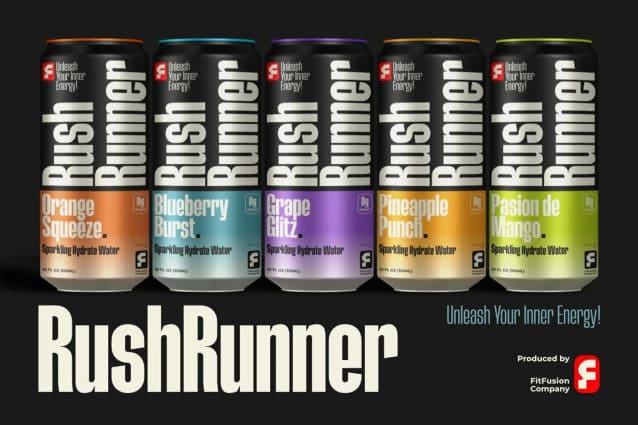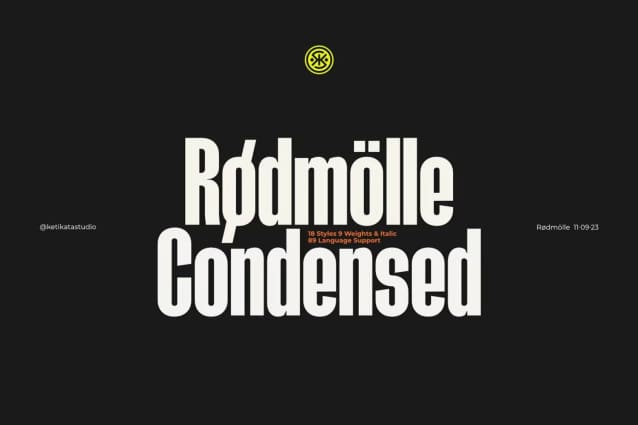
Rødmölle Condensed Font
Rødmölle Condensed Font:  This typeface combines modern aesthetics with a space-saving design, makin it ideal for bold headlines, signage, and branding. Its clean lines and sharp edges convey a sense of strength and sophistication, ensuring your message stands out with clarity and impact. Whether you’re designing for print or digital, this font brins a sleek, contemporary touch to your projects. Elevate your typography with Rødmölle condensed sans!